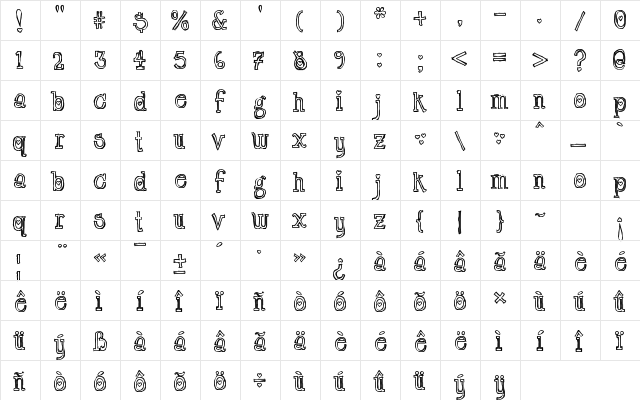
LT Chickenhawk Regular
| Designer | Lauren Thompson, "Nymphont" |
Design Context for LT Chickenhawk Typeface
LT Chickenhawk is a composed and adaptable typeface that performs quietly and consistently across a wide range of design contexts. The delicate stroke weight brings airiness and refinement to layouts.
Pro Tip: Pair LT Chickenhawk with a font of contrasting weight or personality to build a more expressive typographic hierarchy.